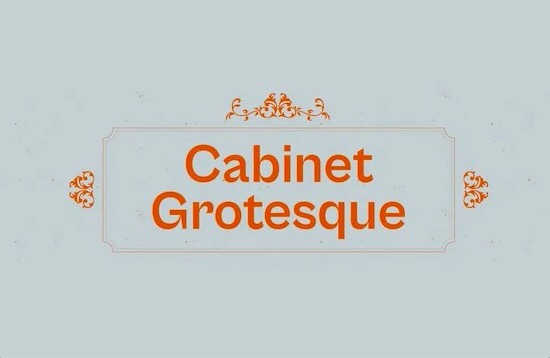
Cabinet Grotesk is a mellow unconventional sans serif font package by Indian Type Foundry (ITF). It was designed with absolutely unique that can easily fit into a very large set of projects. Besides, there is no deeper meaning behind the design. But hopefully, it’s still interesting enough to be taken into consideration for your next project.
It is a geometric sans serif font designed by ITF’s co-founder, Satya Rajpurohit. The font is characterized by its clean, minimalist design with sharp angles and straight lines, giving it a modern and professional appearance.
Cabinet Grotesk font family contains several weights, ranging from thin to bold, and it supports a wide range of languages, including Latin, Cyrillic, and Greek. The font is also available in both desktop and web font formats.
One notable feature of Cabinet Grotesk Font is its use of alternate characters, which provide additional design options for users. ITF has also designed a monospaced version of the Cabinet Grotesk font, called Cabinet Mono, which is useful for coding and programming applications.
Cabinet Grotesk font has gained popularity among designers and creatives for its versatility and clean, modern aesthetic. It has been used in a variety of projects, including branding and identity design, editorial layouts, and digital interfaces.
ITF has described Cabinet Grotesk Font as a “no-nonsense, versatile typeface” that is well-suited for use in editorial design, branding, advertising, and other applications where a clean, modern look is desired. To use Cabinet Grotesk with the most powerful features, you can purchase a license to use it HERE.
Cabinet Grotesk Sans Serif Font